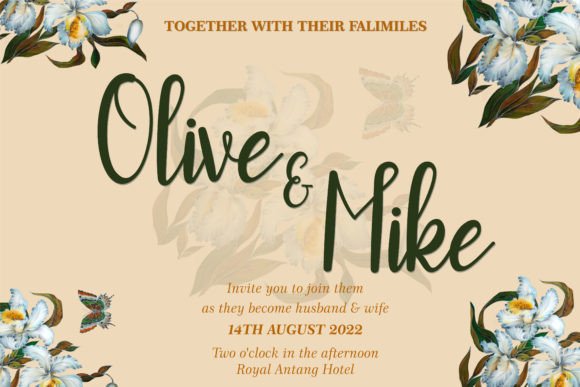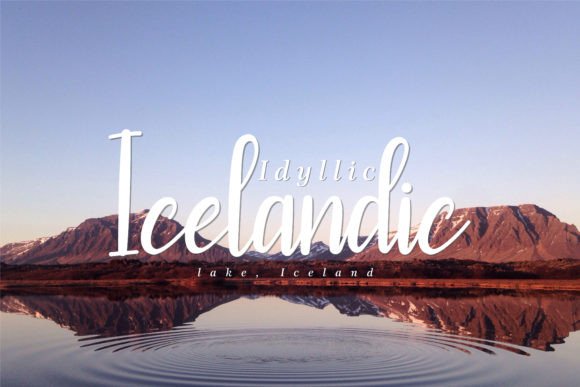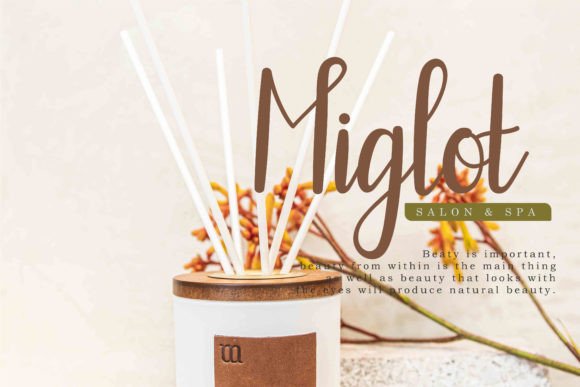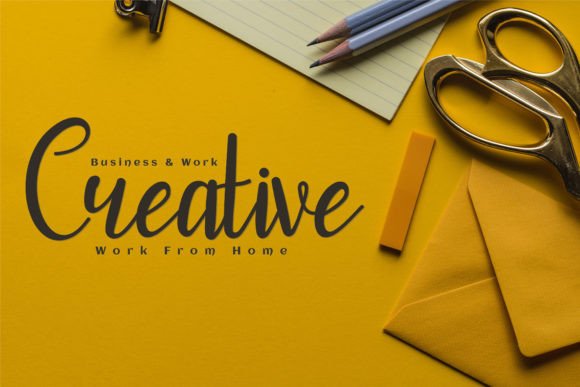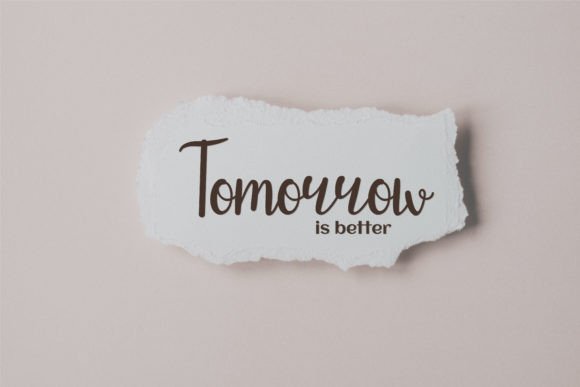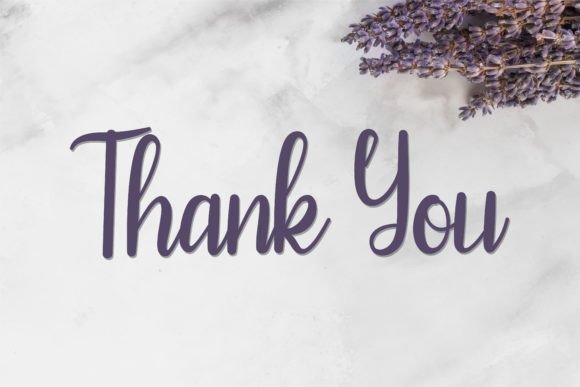
Introducing Bestie Font: The Ultimate Handwritten Font for Stunning Designs
Are you a designer or crafter looking for a beautiful and elegant font to elevate your projects? Look no further than Bestie Font, a stunning handwritten font that’s perfect for a wide range of applications. In this article, we’ll explore the features and benefits of Bestie Font, and show you how to use it to create impressive typography for your wall displays, wedding invitations, social media posts, logos, advertisements, product packaging, product designs, labels, photography, watermarks, invitations, stationery, and more.
What is Bestie Font?
Bestie Font is a beautiful, handwritten font that’s designed to add a touch of elegance and sophistication to your projects. With its flowing lines and cursive script, Bestie Font is perfect for creating eye-catching displays, invitations, and marketing materials that stand out from the crowd. Whether you’re a professional designer or a DIY crafter, Bestie Font is an excellent choice for anyone looking to add some personality and style to their work.
Key Features of Bestie Font
- Handwritten script: Bestie Font features a beautiful, handwritten script that’s perfect for creating personal and elegant designs.
- Versatile: Bestie Font can be used for a wide range of projects, from wall displays and wedding invitations to social media posts and product packaging.
- Elegant and sophisticated: Bestie Font’s flowing lines and cursive script give it an air of elegance and sophistication, making it perfect for high-end designs.
Uses for Bestie Font
Bestie Font is an incredibly versatile font that can be used for a wide range of projects, including:
- Wall displays: Create stunning wall displays with Bestie Font, perfect for showcasing quotes, lyrics, or special messages.
- Wedding invitations: Make your wedding invitations truly special with Bestie Font, adding a touch of elegance and romance to your big day.
- Social media posts: Elevate your social media posts with Bestie Font, creating eye-catching graphics and quotes that stand out from the crowd.
- Logos and branding: Use Bestie Font to create unique and memorable logos and branding materials that reflect your business’s personality and style.
- Advertisements: Create stunning advertisements with Bestie Font, perfect for showcasing products, services, or promotions.
- Product packaging: Add a touch of elegance to your product packaging with Bestie Font, making your products stand out on store shelves.
- Product designs: Use Bestie Font to create beautiful product designs, from t-shirts and mugs to phone cases and tote bags.
- Labels and photography: Add a professional touch to your labels and photography with Bestie Font, perfect for showcasing your products or artwork.
- Watermarks and invitations: Use Bestie Font to create elegant watermarks and invitations, perfect for protecting your work and inviting guests to special events.
- Stationery: Create beautiful stationery with Bestie Font, including letterheads, notecards, and journals.
Tips for Using Bestie Font
To get the most out of Bestie Font, here are a few tips to keep in mind:
- Experiment with sizes and colors: Bestie Font looks great in a variety of sizes and colors, so don’t be afraid to experiment and find the perfect combination for your project.
- Pair with other fonts: Bestie Font pairs well with other fonts, so try combining it with a bold or sans-serif font to create visual interest.
- Use it sparingly: While Bestie Font is beautiful, it can be overwhelming if used too much. Use it sparingly to create emphasis and add visual interest to your designs.
| Author | Arief Indra Pratama |
Bestie Font is a stunning handwritten font that’s perfect for designers and crafters looking to add a touch of elegance and sophistication to their projects. With its versatile design and wide range of uses, Bestie Font is an excellent choice for anyone looking to create impressive typography for their wall displays, wedding invitations, social media posts, logos, advertisements, product packaging, product designs, labels, photography, watermarks, invitations, stationery, and more. So why wait? Download Bestie Font today and start creating beautiful designs that stand out from the crowd!